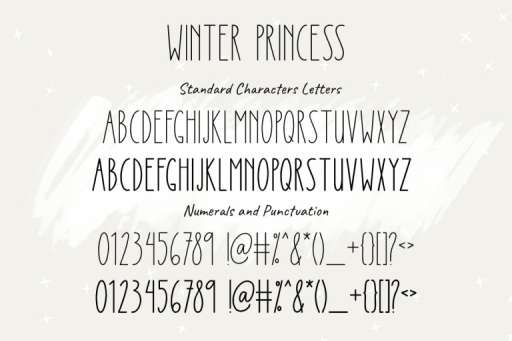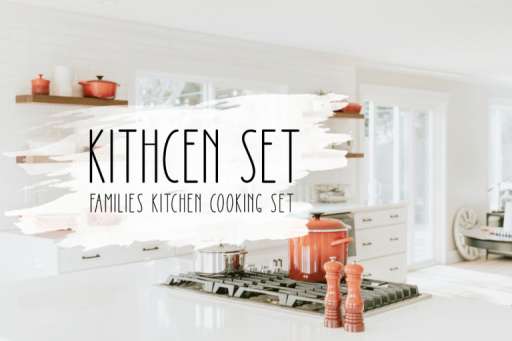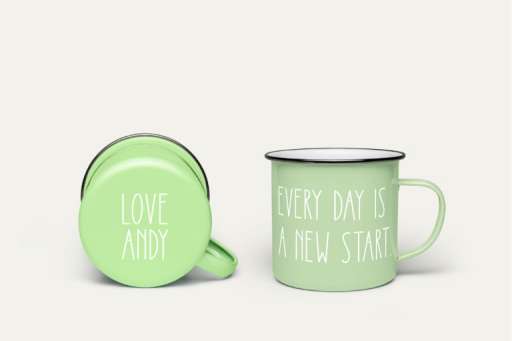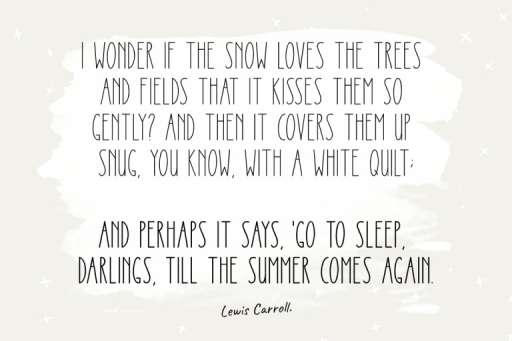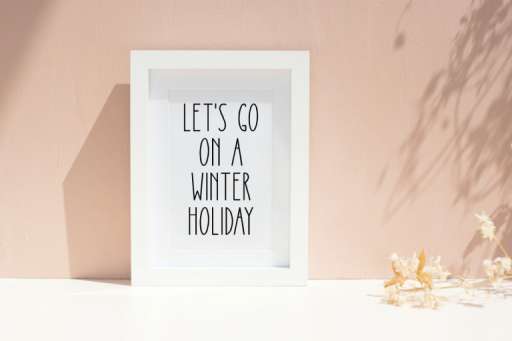
Winter Princess Font - Farmhouse Font From Jimtype Studio
Winter Princess Regular
Winter Princess Bold
Winter Princess – Tall and Skinny Font
Winter Princess is a tall and skinny font, we make it in two styles; regular and bold font. This font looks very awesome for quotes, shirt design, SVG design, children’s design, SVG design, branding, farmhouse design, Cricut projects, mugs, and so on.
Winter Princess Font